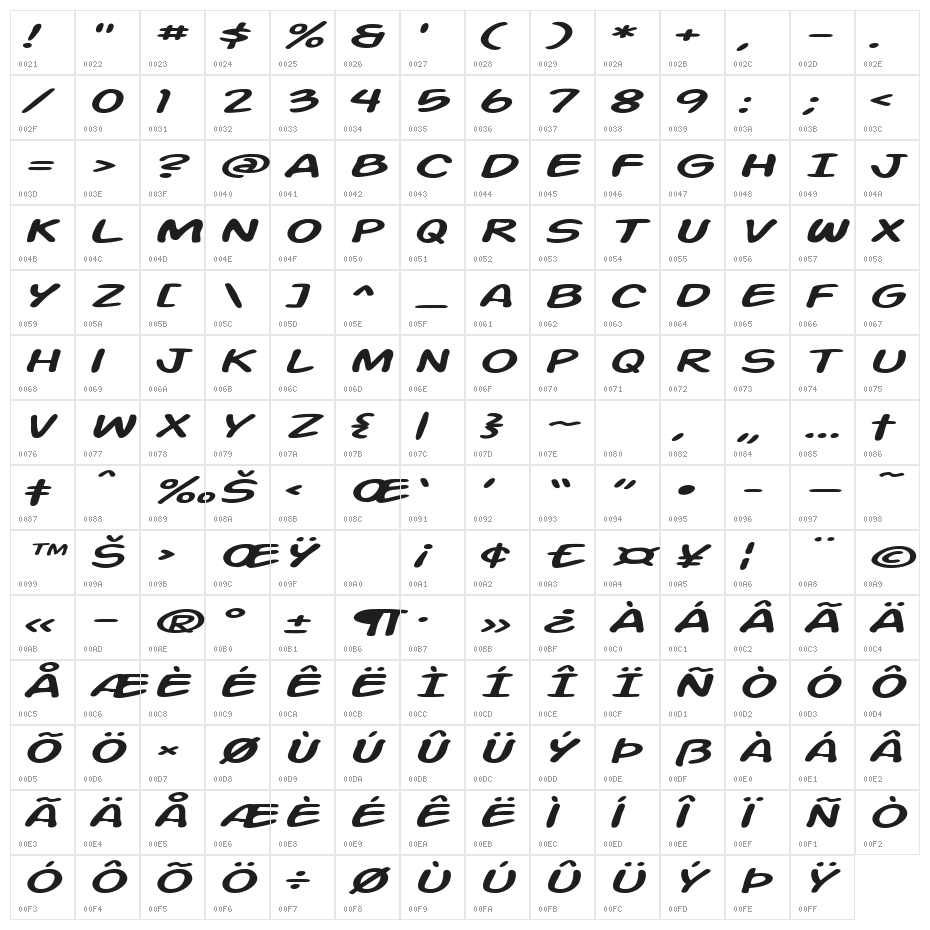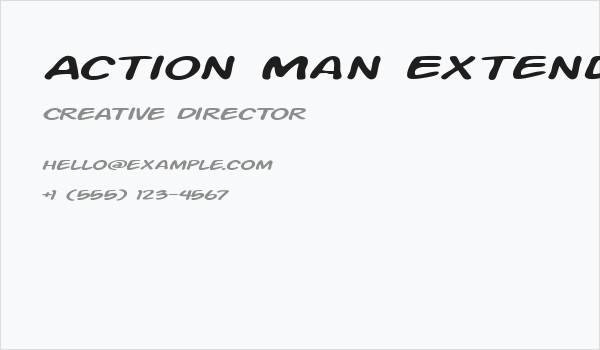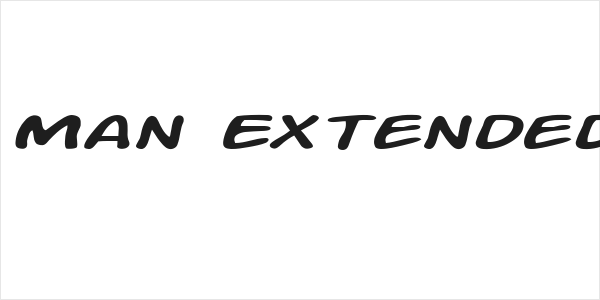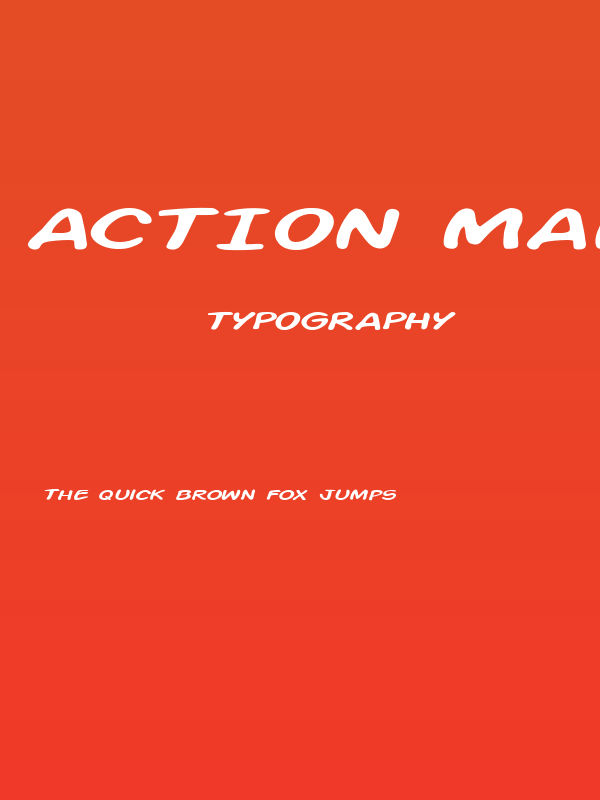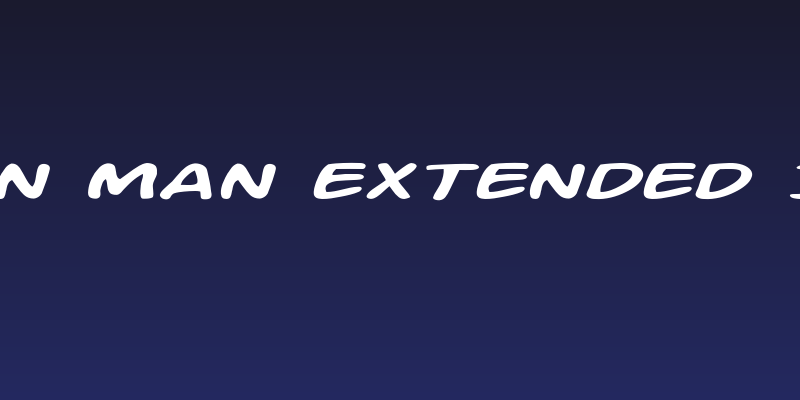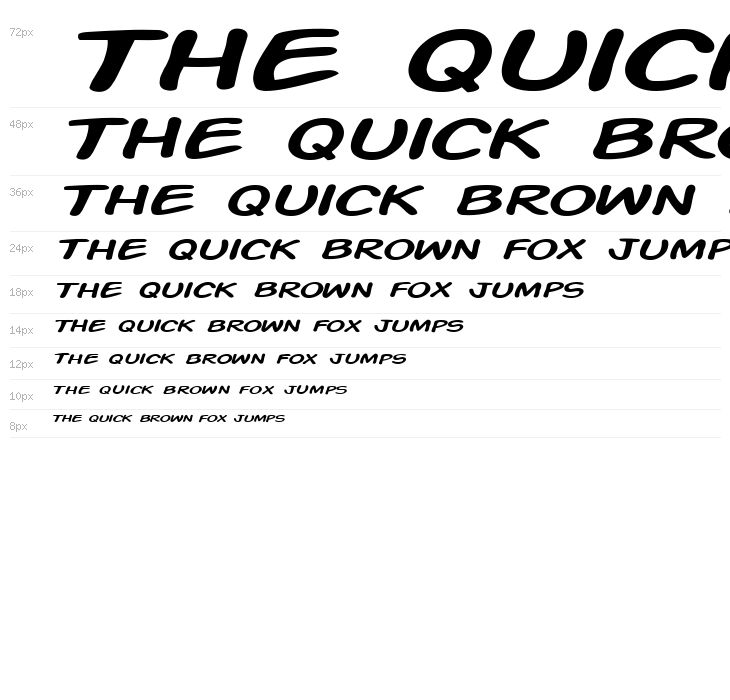
Action Man Extended Italic Font
Action Man Extended Italic Description
This font features a dynamic and energetic style with a slanted, italicized form that gives it a sense of motion and fluidity. The characters are bold and slightly extended, providing a strong visual impact. The strokes are smooth and rounded, contributing to a friendly and approachable appearance. The uppercase and lowercase letters maintain consistent proportions, ensuring readability while adding a playful touch. The numerals and special characters are designed to match the overall aesthetic, making them suitable for a variety of uses.
| Proposed Projects | Ideal for sports branding, dynamic posters, playful packaging, and energetic advertising campaigns. |